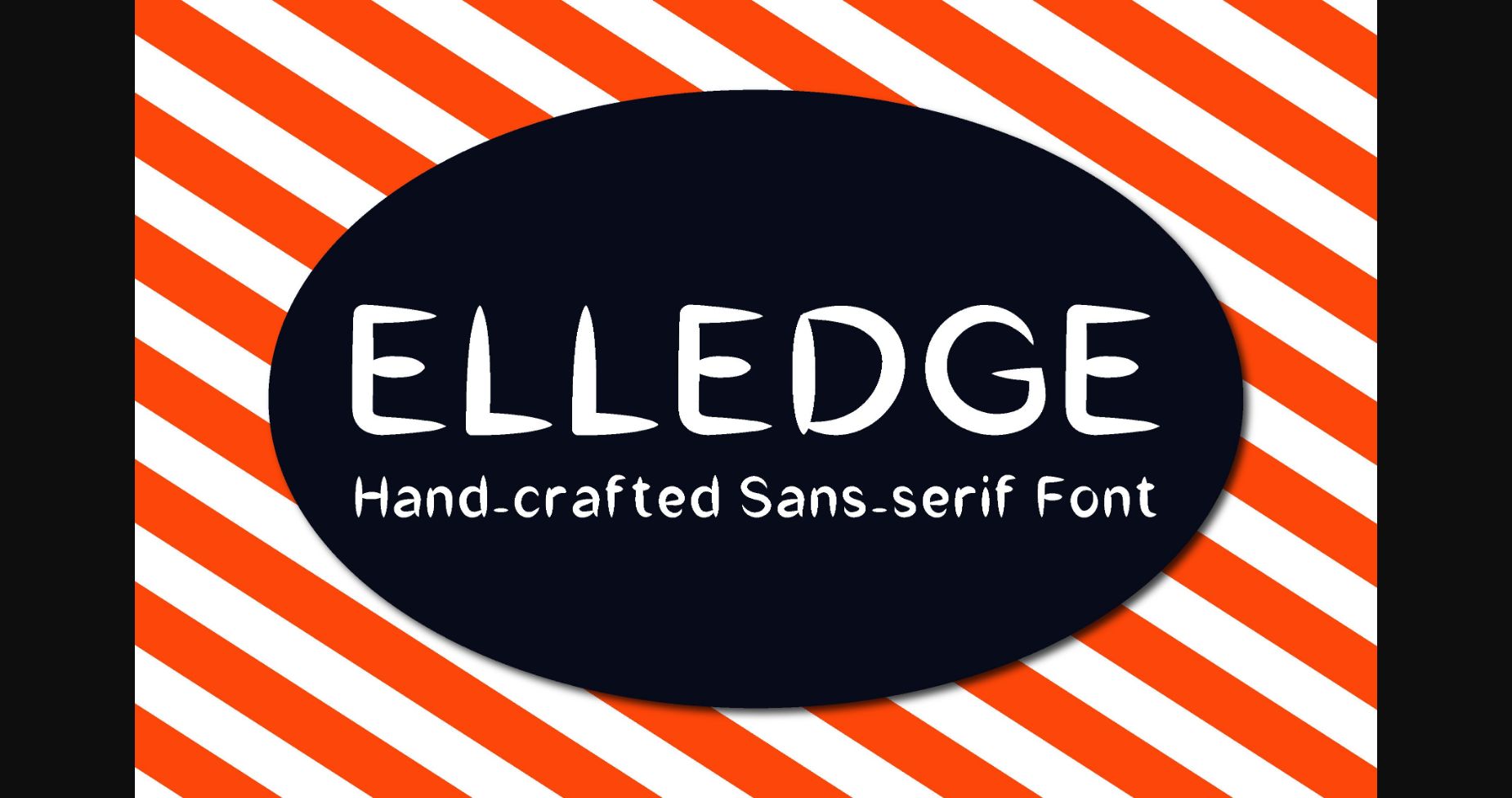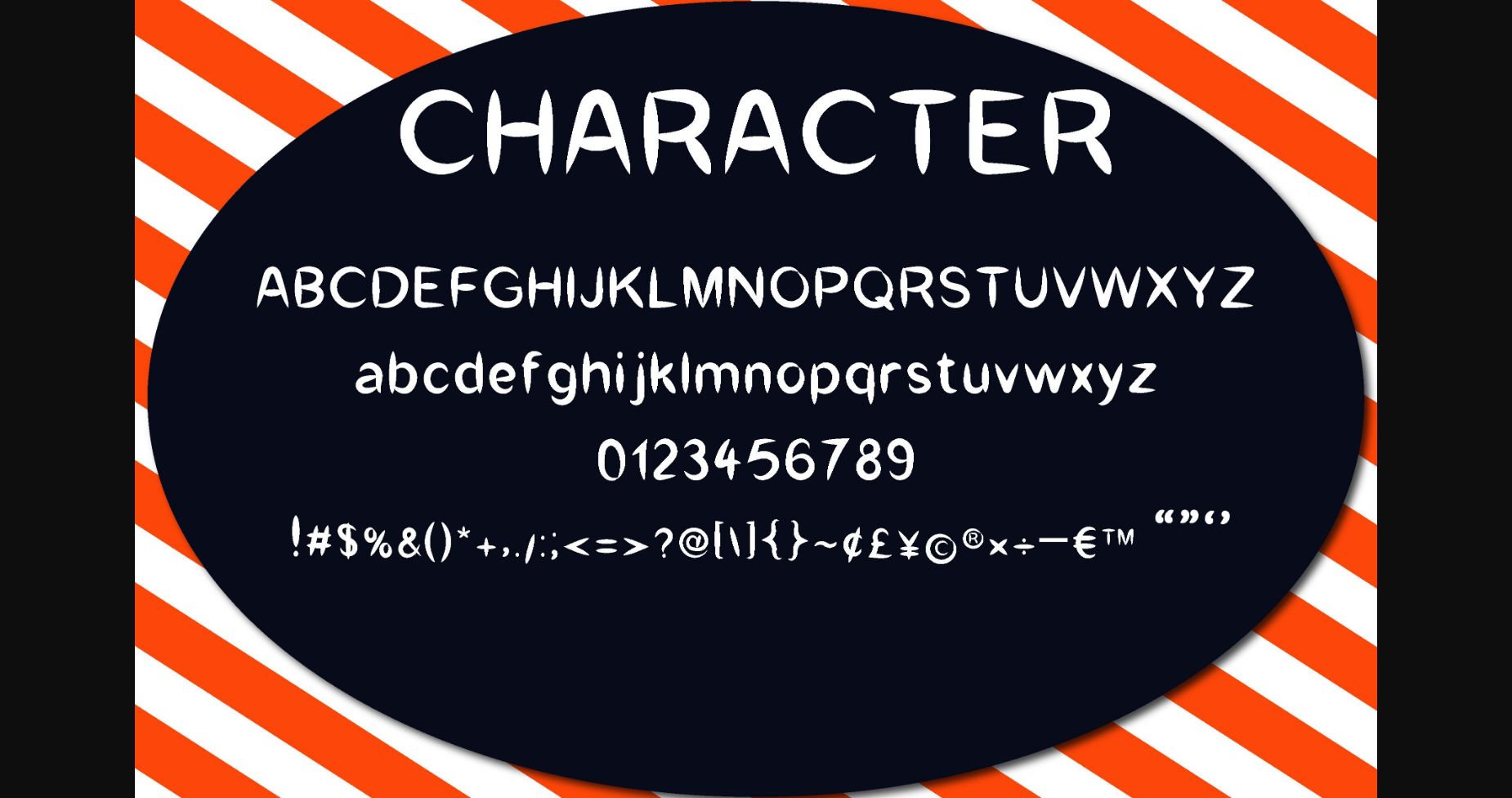
Elledge Font
About Elledge Font
Elledge is a font that can be used for any project. Crafted with a friendly and fun vibe, Elledge is a sans serif font that looks cute, friendly, and fun. Whether you’re using it for crafts, digital design, presentations, or creating greeting cards. It’s a super fun and charming font that goes anywhere!